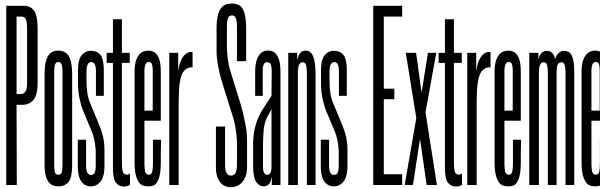
Poster Sans
Display typeface with a classic sans feel, loosely based on Ludlow 6-EC. Oh, and great for posters. A bold weight is also included, and a useful outline version too. A new addition, Poster Sans Extreme, may hold the record for the slimmest, usable...
Poster Sans Outline
Poster Sans
Poster Sans Bold
Poster Sans Extreme